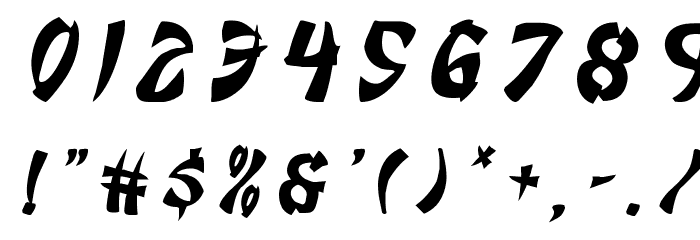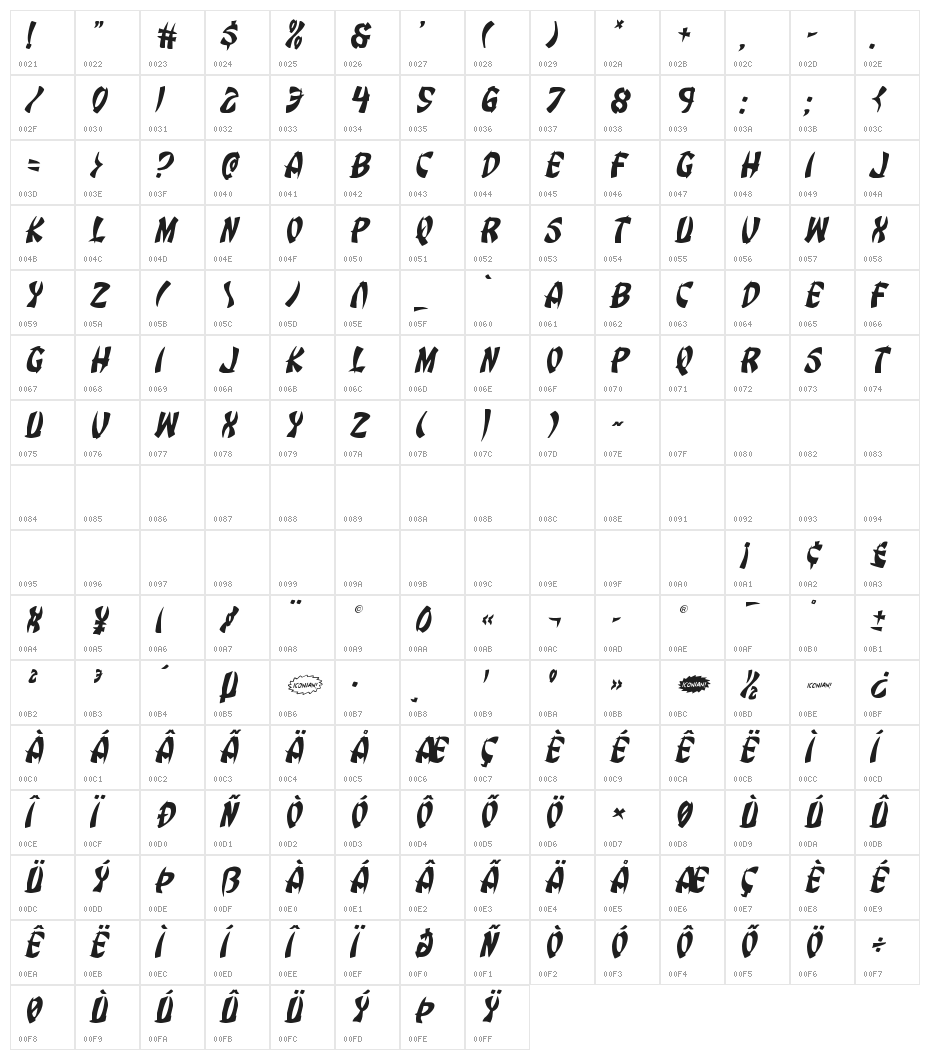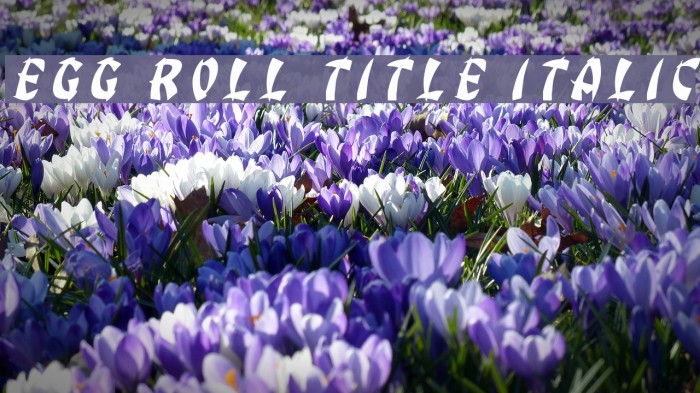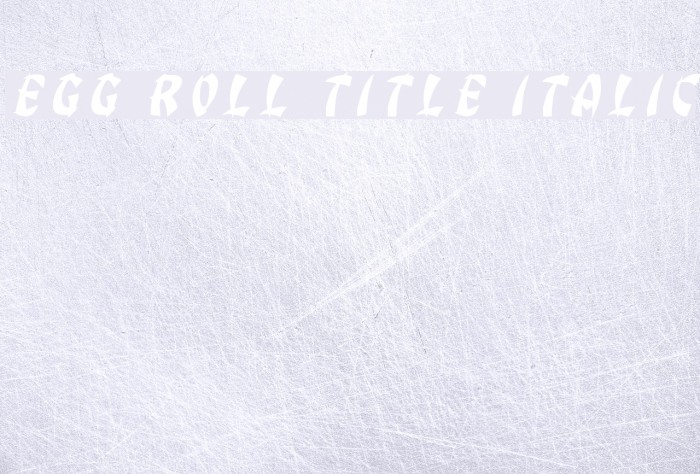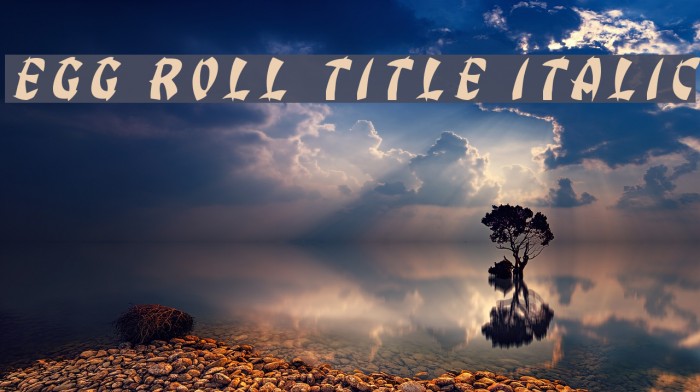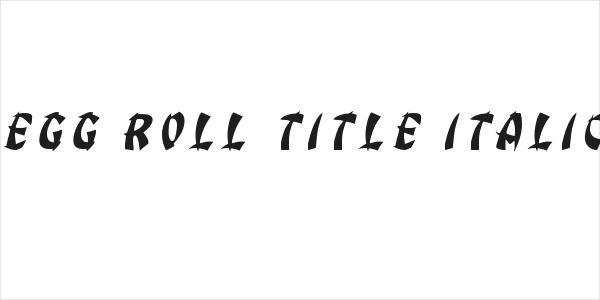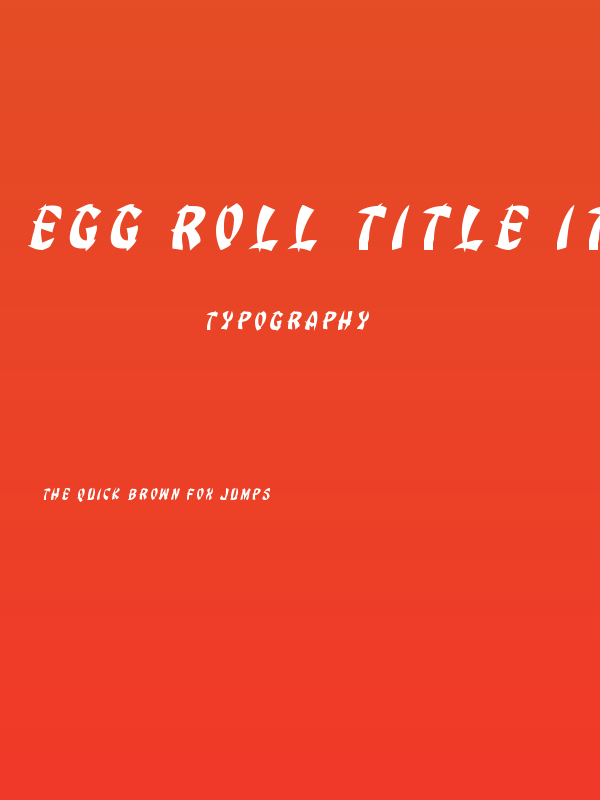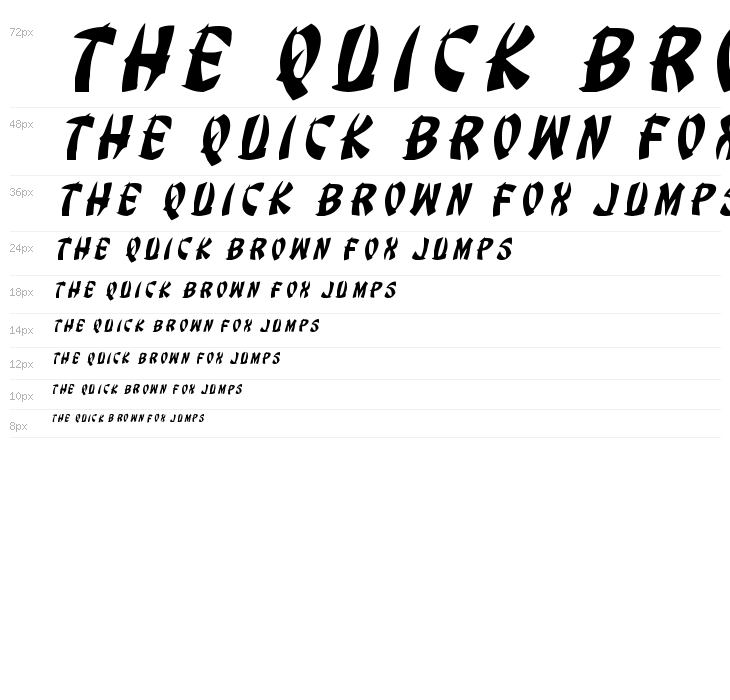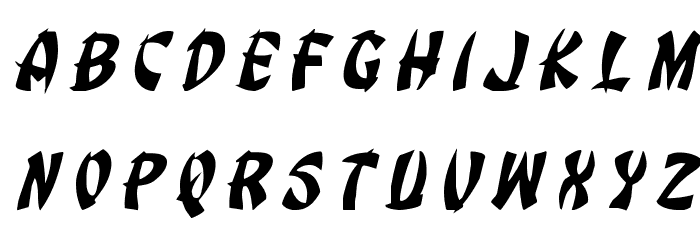
Egg Roll Title Italic Font
Egg Roll Title Italic Description
This font features a bold and dynamic style with a distinct italic slant, giving it a sense of movement and energy. The characters are sharply angled with thick strokes, creating a strong visual impact. The uppercase and lowercase letters maintain a consistent style, with exaggerated serifs and a slightly condensed form. The numbers and special characters follow the same bold and expressive design, making them stand out. This font's unique style is ideal for projects that require a touch of flair and personality.
| Proposed Projects | Ideal for posters, logos, branding materials, and headlines that need a bold and energetic appearance. |